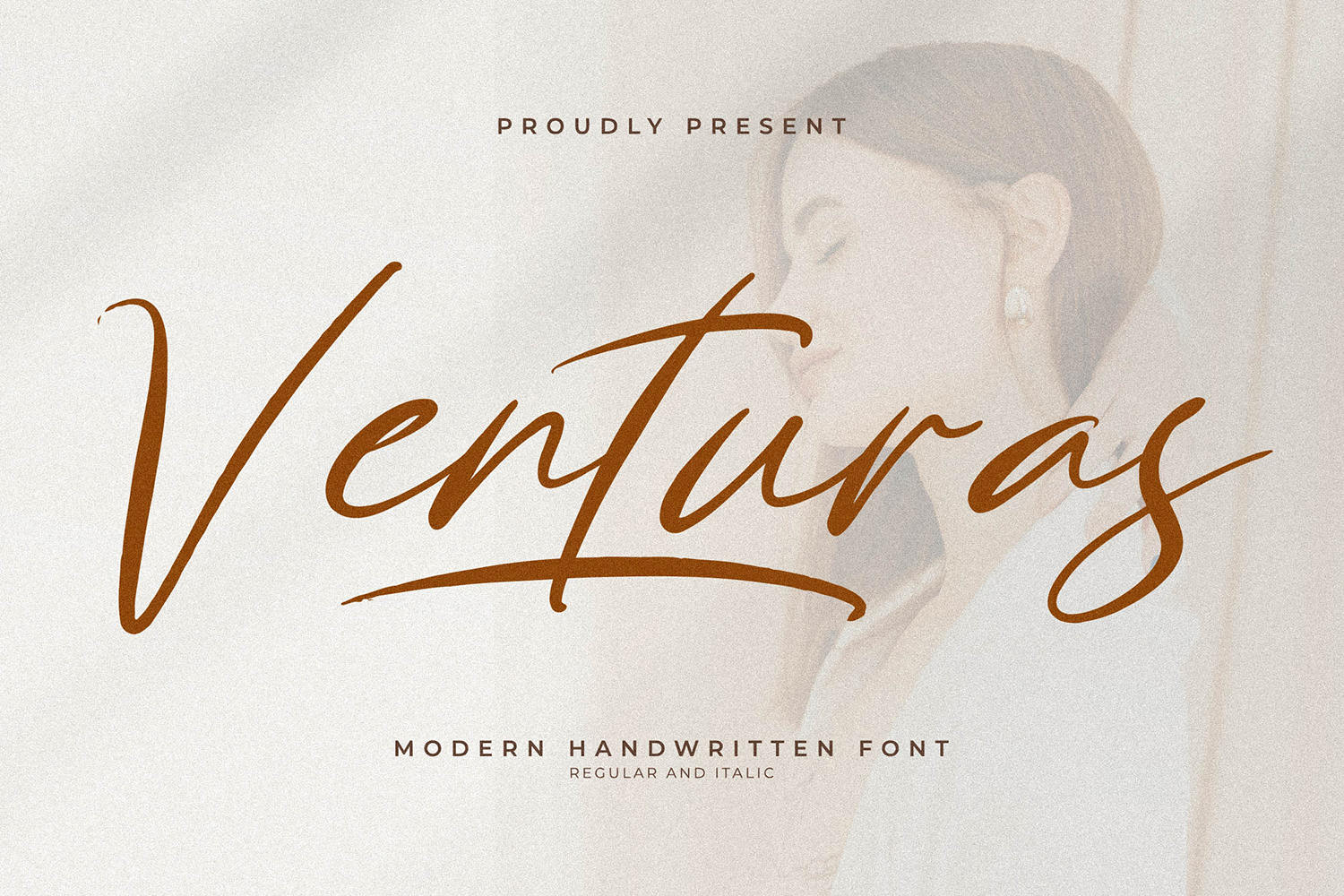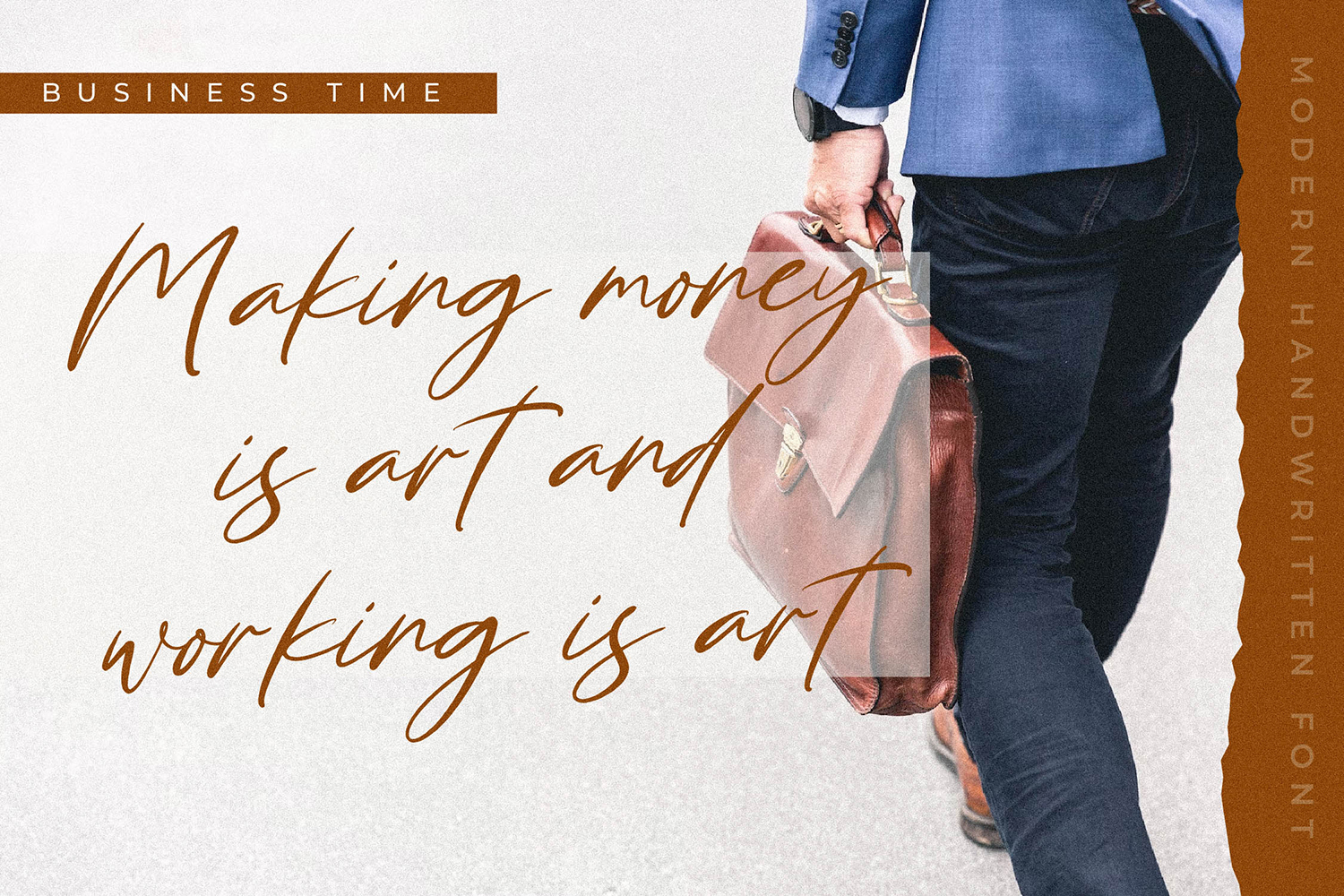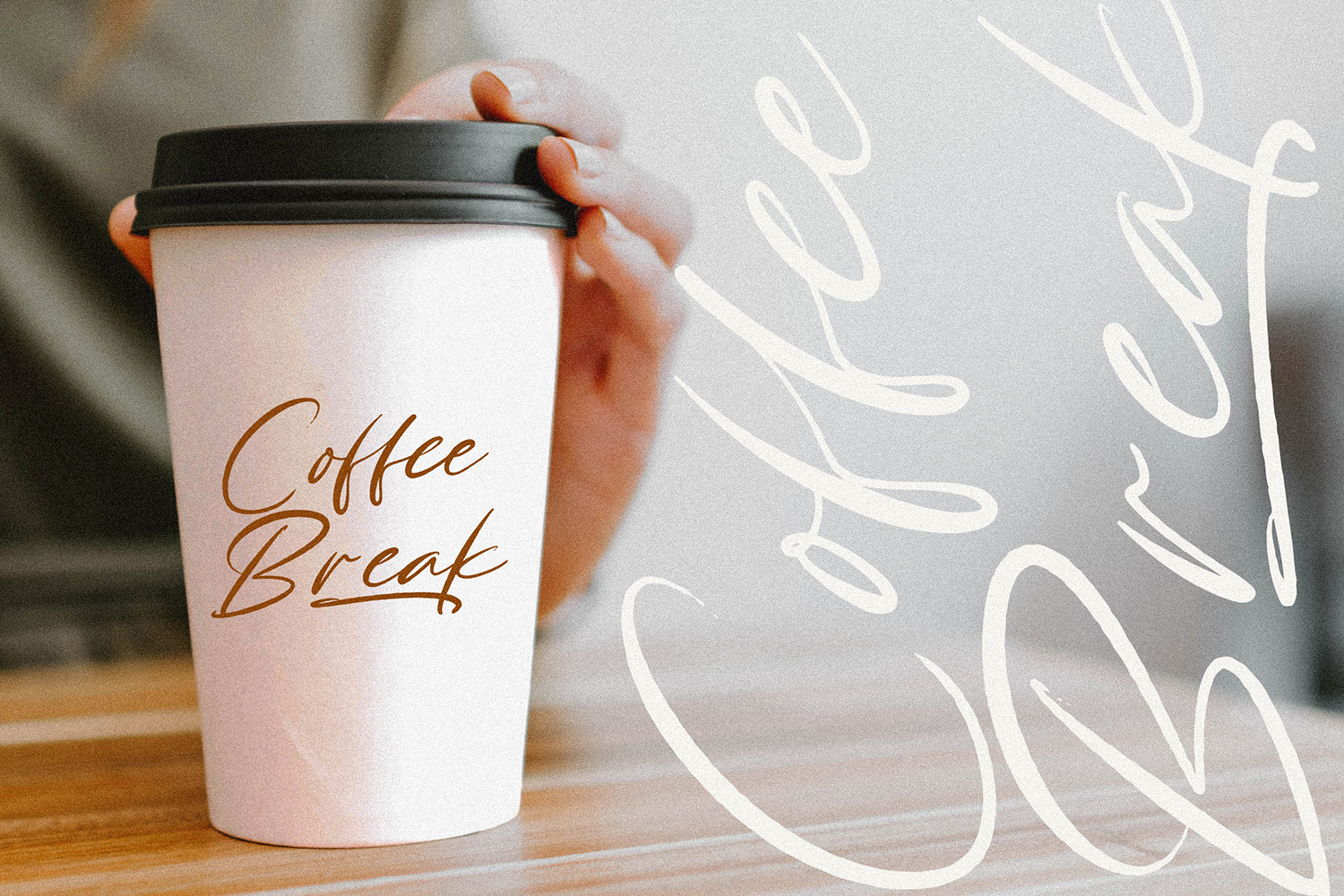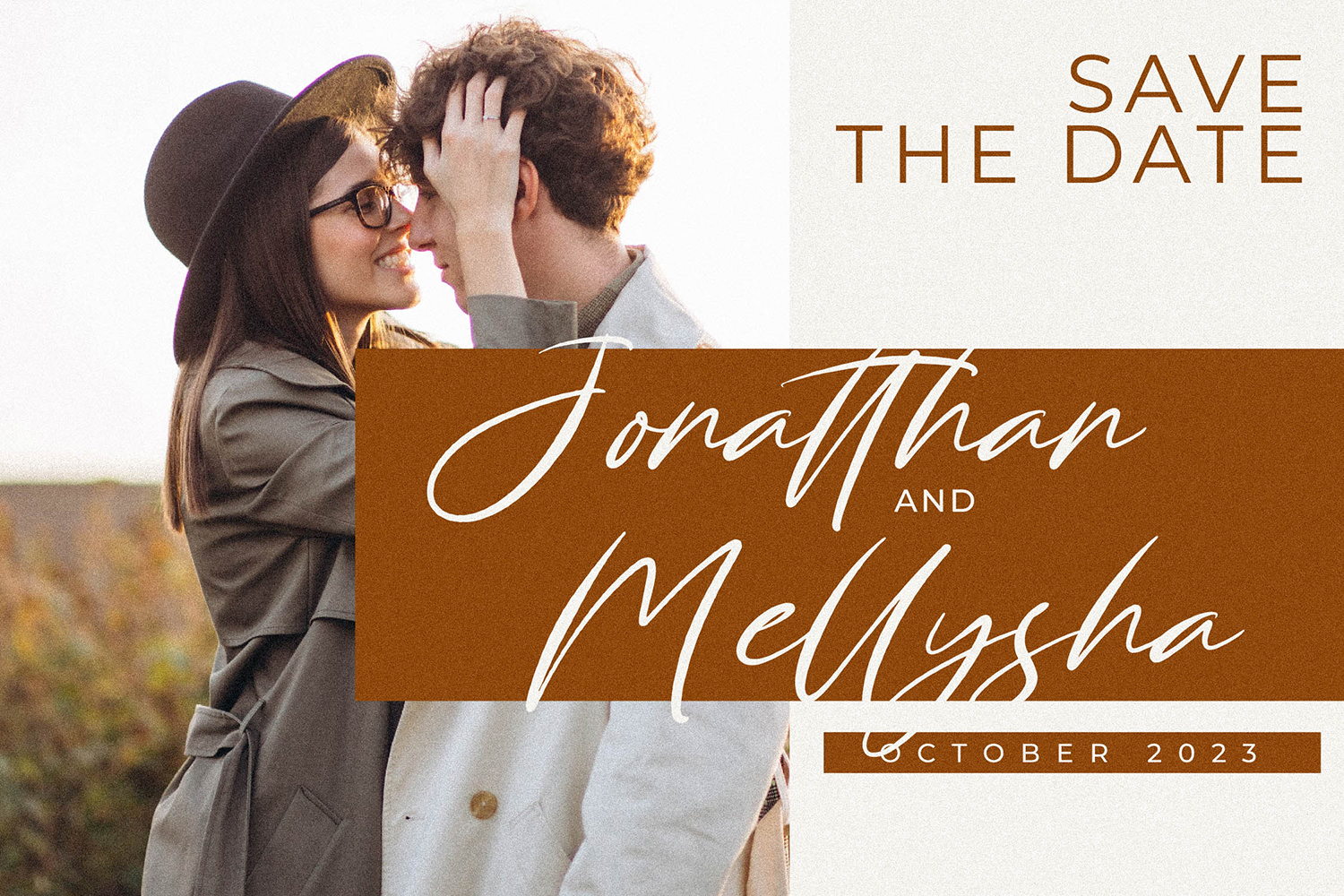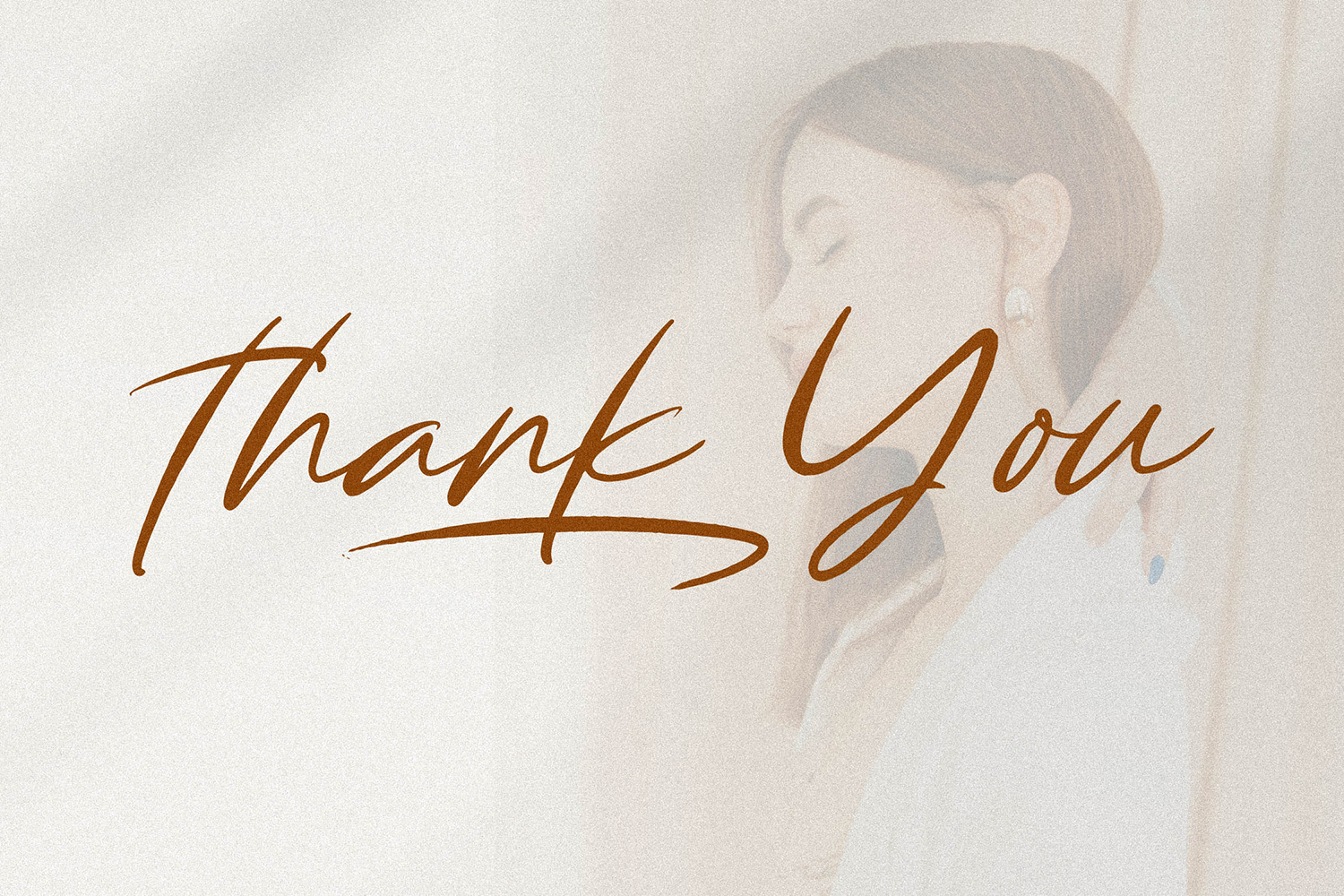
Venturas Free Font
Venturas Free Font, a modern and artistic handwritten font, is your perfect companion for a wide array of projects. From logos and branding to homeware designs, product packaging, mugs, quotes, posters, shopping bags, t-shirts, book covers, name cards, invitation cards, greeting cards, labels, photography, watermarks, special events, and more, Venturas adds a touch of beauty and style. Elevate all your lovely projects with the exquisite script taste of Venturas. This free typeface was designed by a talented Glorytype Studio. If you like it don’t forget to check out the full version.